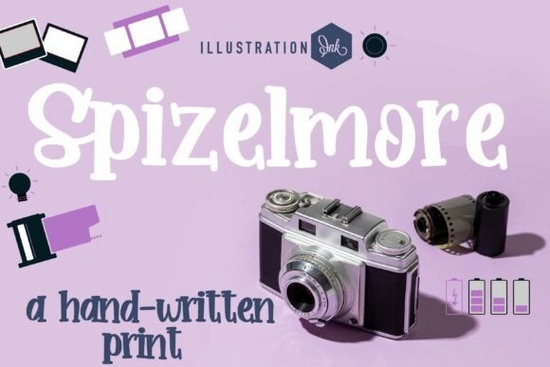
If you're looking for a font that can add a touch of nostalgia and charm to your designs, Spizelmore Font is a fantastic choice. This display typeface captures the cozy, retro feel of vintage film photography scrapbooks, making it perfect for indie lifestyle brands, custom photo journal headings, and creative zine titles.
What Makes Spizelmore Font Stand Out?
Spizelmore Font stands out with its thick, blocky handwritten letterforms. The soft rounded contours and subtle playful curves give it a casual, inviting feel. The mismatched baseline alignment adds a unique, handcrafted look that perfectly evokes the warmth of a bygone era. This makes it an excellent choice for projects that need a personal, nostalgic touch.
Perfect for Indie and Creative Projects
Whether you're designing a custom photo journal, creating packaging for a boutique analog studio, or crafting high-impact social media posts, Spizelmore Font can help you achieve a distinctive, vintage aesthetic. Its playful, graphic elements, such as cameras, film canisters, and polaroid accents, make it a natural fit for creative storytelling layouts.
How Can You Use Spizelmore Font in Your Designs?
Spizelmore Font is versatile and can be used in a variety of design projects. Here are some ideas:
- Custom Photo Journals: Add a personal touch to your photo journals with Spizelmore Font. Its handwritten style and playful curves will make your journal entries feel more intimate and engaging.
- Boutique Packaging: If you run a small business that sells handmade or vintage-inspired products, Spizelmore Font can be a great choice for your packaging. It adds a charming, handcrafted feel that can make your products stand out.
- Creative Zines and Magazines: For those who publish zines or magazines, Spizelmore Font can bring a unique, retro vibe to your titles and headings. It's perfect for capturing the attention of readers and setting the tone for your content.
- Social Media Graphics: Use Spizelmore Font in your social media graphics to create eye-catching, high-impact posts. Its distinctive style can help your content stand out in a crowded feed.
Complementary Fonts for Spizelmore
To enhance your designs, consider pairing Spizelmore Font with other complementary fonts. Here are a few options that work well:
- Cartoon Distress Font: This font has a similar playful, hand-drawn feel that can complement Spizelmore's casual style.
- Cartoon Doodle Font: Another great option for adding a whimsical, hand-drawn element to your designs.
- Twinkle Candy Font: This sweet, playful font can add a touch of fun and whimsy to your projects.
- Bold Limited Distressed Font: For a more rugged, vintage look, this font can provide a nice contrast to Spizelmore's softer edges.
- Vanilla Cream Font: A clean, elegant font that can balance out the more casual, playful elements of Spizelmore.
Tips for Using Spizelmore Font Effectively
To get the most out of Spizelmore Font, here are a few tips:
- Experiment with Colors: Try using soft, pastel colors like lavender, which complements the font's vintage feel. This can help set the right mood for your project.
- Play with Layouts: Don't be afraid to experiment with different layouts. The mismatched baseline alignment of Spizelmore Font can add a unique, handcrafted look to your designs.
- Combine with Graphics: Incorporate playful graphics like cameras, film canisters, and polaroid accents to enhance the vintage, nostalgic feel of your designs.
- Use for Headings and Titles: Spizelmore Font works best for headings and titles. Use it sparingly to draw attention to key elements of your design without overwhelming the overall layout.
By following these tips, you can effectively use Spizelmore Font to add a touch of nostalgia and charm to your creative projects. Whether you're working on a photo journal, boutique packaging, or social media graphics, Spizelmore Font is a versatile and charming choice.
Next Step: Start experimenting with Spizelmore Font in your next design project. Consider pairing it with one of the complementary fonts mentioned above to create a cohesive and visually appealing design.